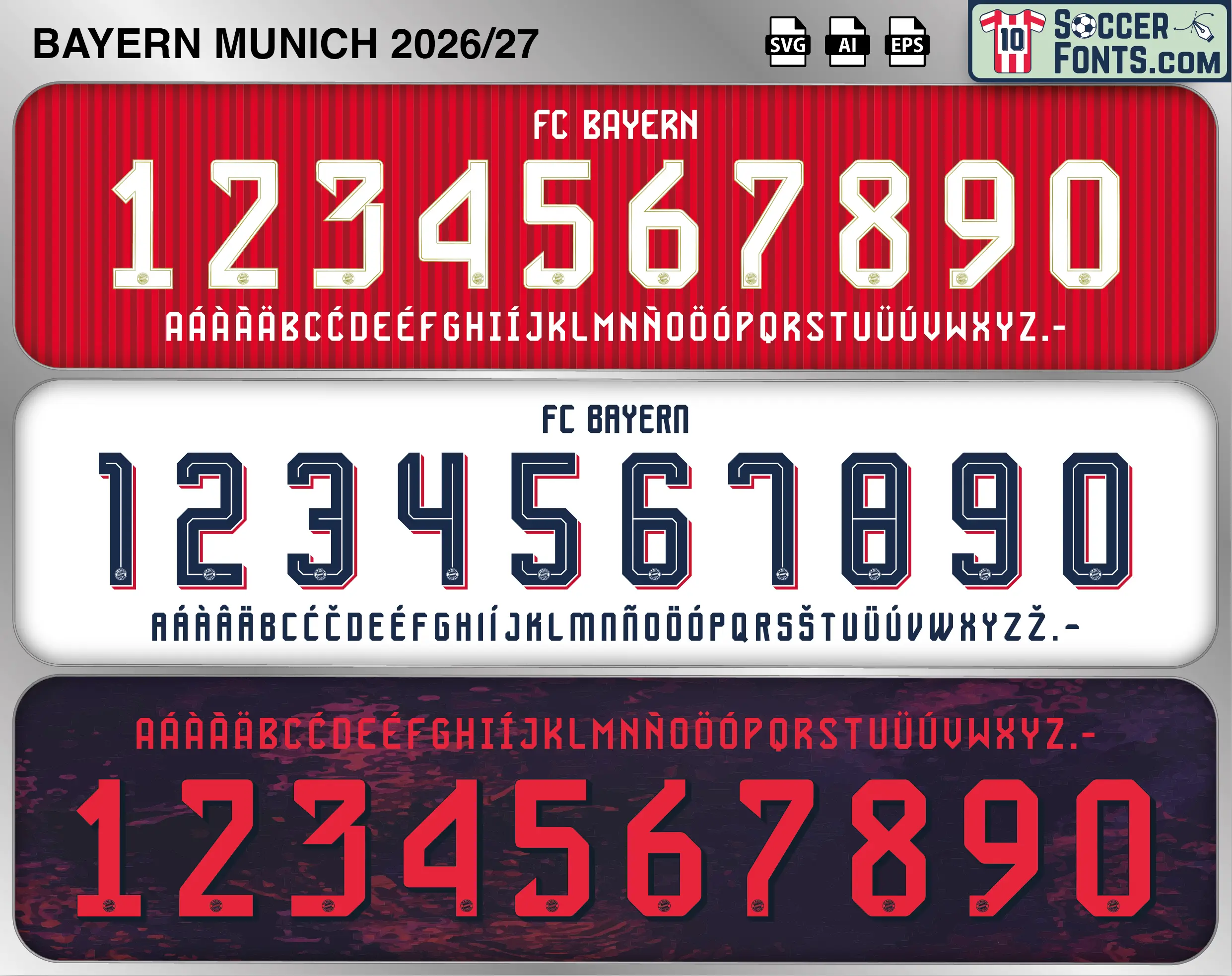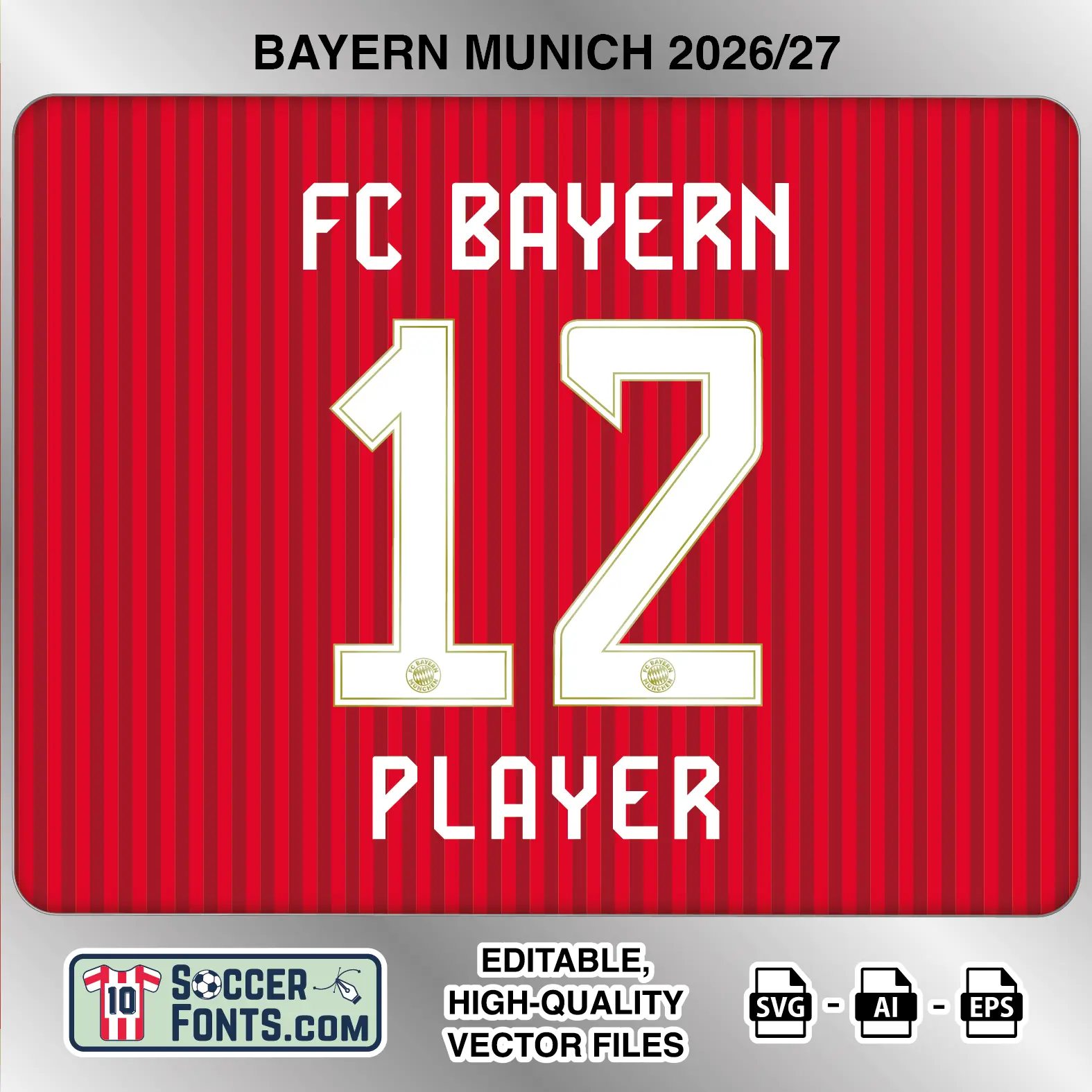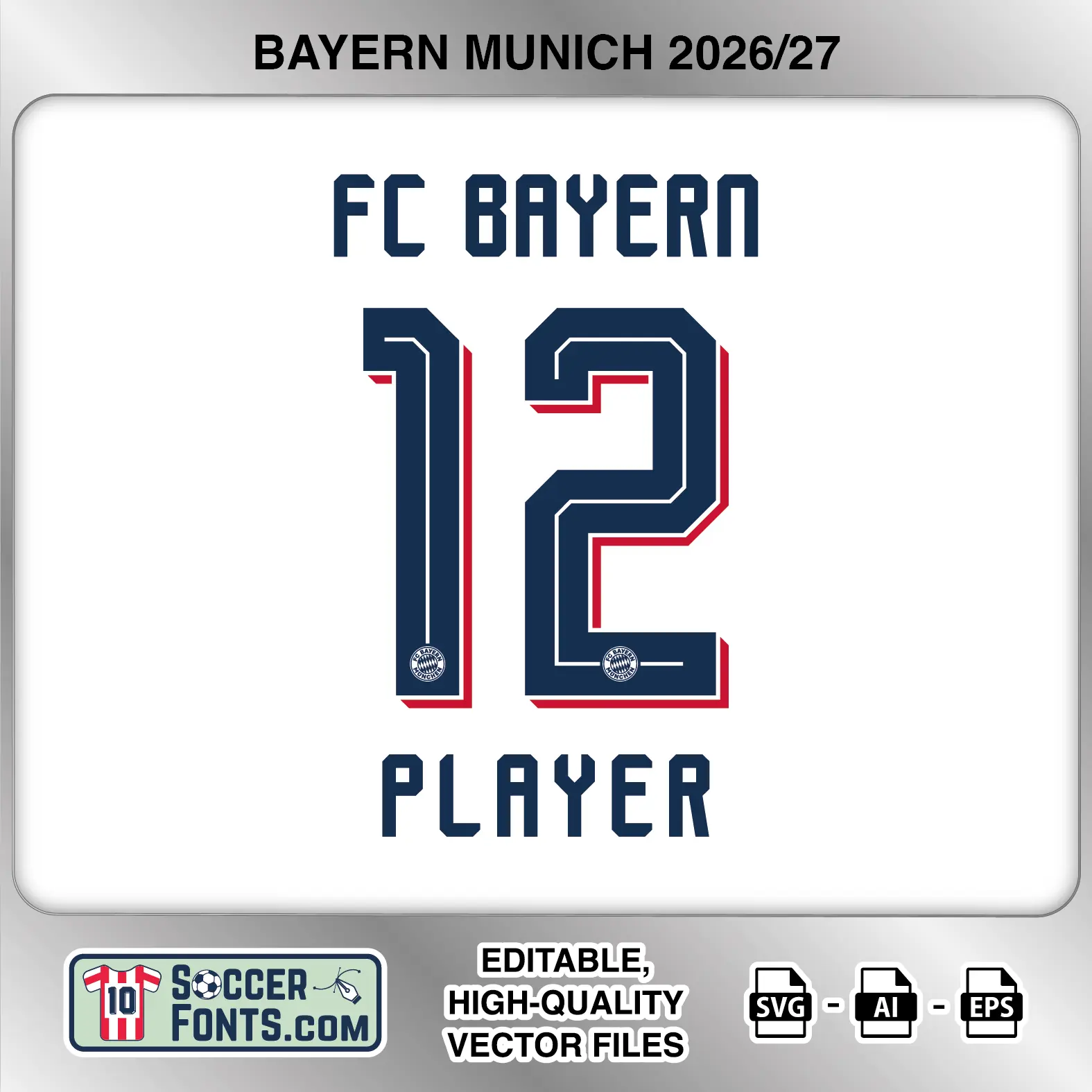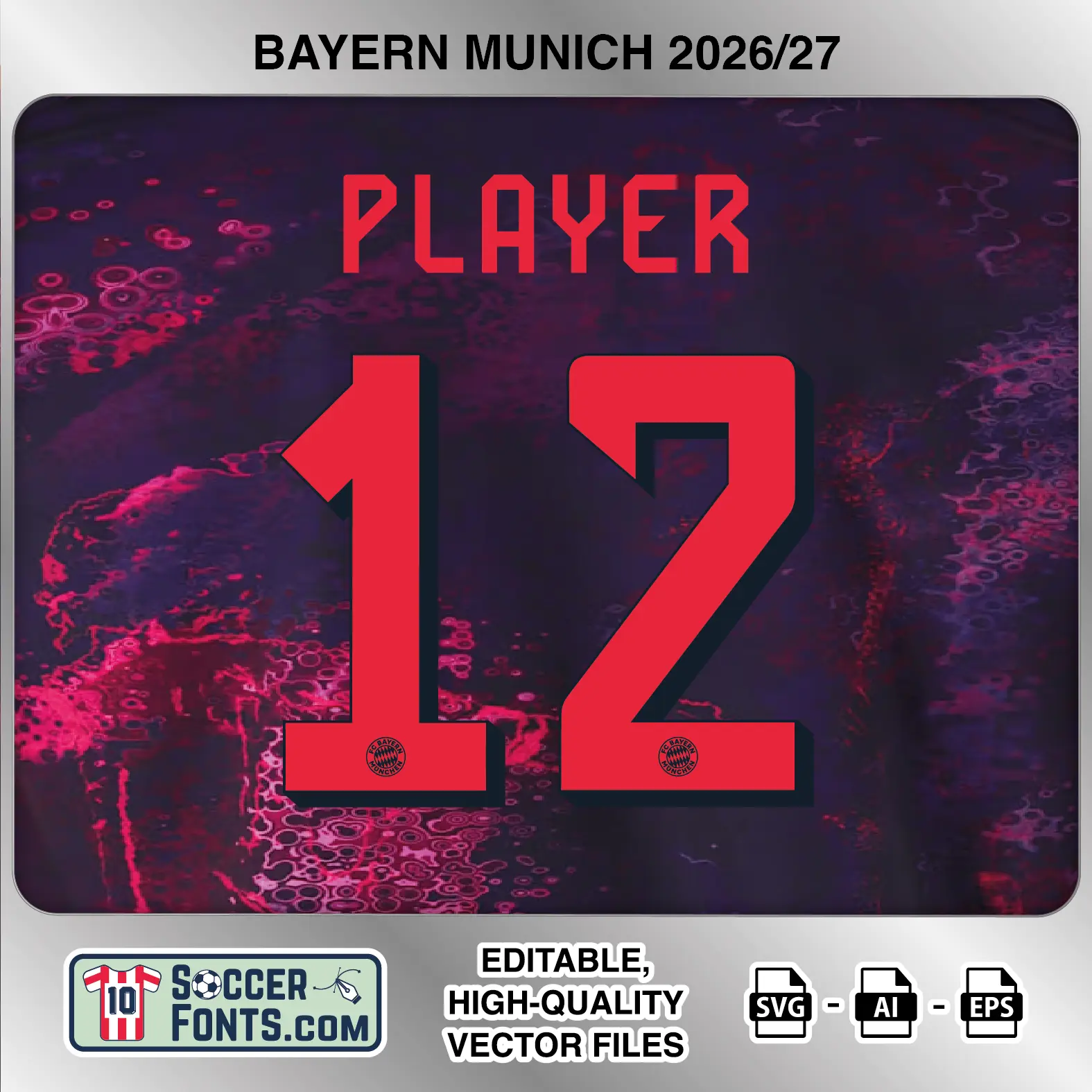
About Bayern Munich 2026-27 Font
Download Bayern Munich 2026-27 font, an editable soccer jersey lettering design in vector format inspired by the Bayern Munich kit style used during the 2026-27 football season. This football font artwork is prepared for football shirt recreations, custom jersey projects, football kit mockups and sports graphic design workflows.
Visual Identity of the Font Design :
The Bayern Munich 2026-27 collection combines three distinct lettering systems for the home, away and third shirts. The home set uses tall, condensed uppercase letters and large angular numbers with a light fill and fine contrasting outline. Its construction is geometric, with clipped corners and diagonal cuts giving both letters and numbers a narrow, structured appearance. The away set is also condensed but introduces a more layered treatment: dark navy characters are paired with a thin light inner line and a red offset accent visible along selected edges, creating additional depth without turning the numbers into a conventional full-outline design. The third set is noticeably heavier, with bold red numbers, sharply cut corners and a dark offset shadow. Its uppercase lettering remains comparatively narrow, helping the names sit naturally above the heavier numerals. Together, the three systems create clearly separated home, away and third identities while maintaining the angular, athletic visual language of Bayern’s 2026-27 kit cycle.
Context of 2026-27 Season for Bayern Munich :